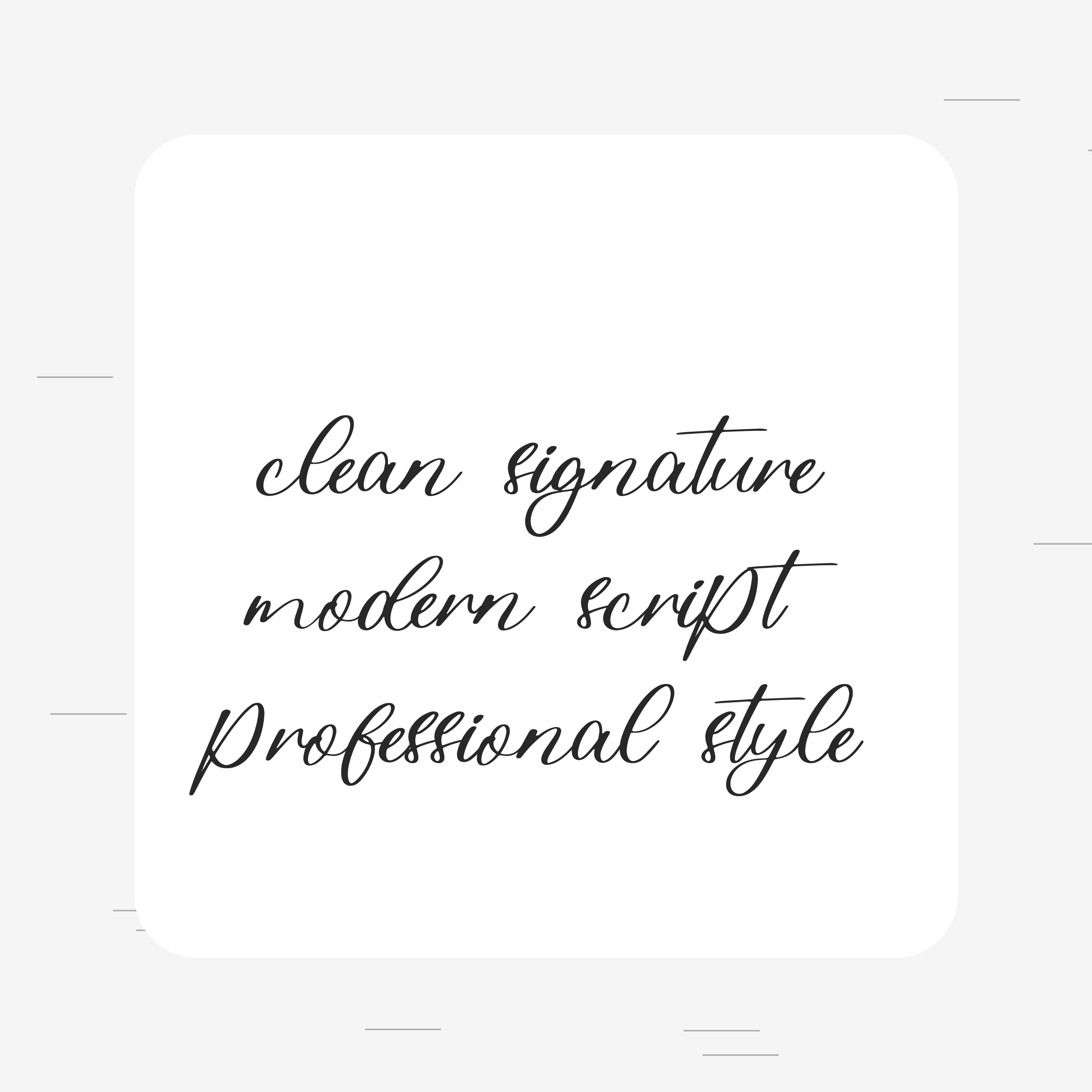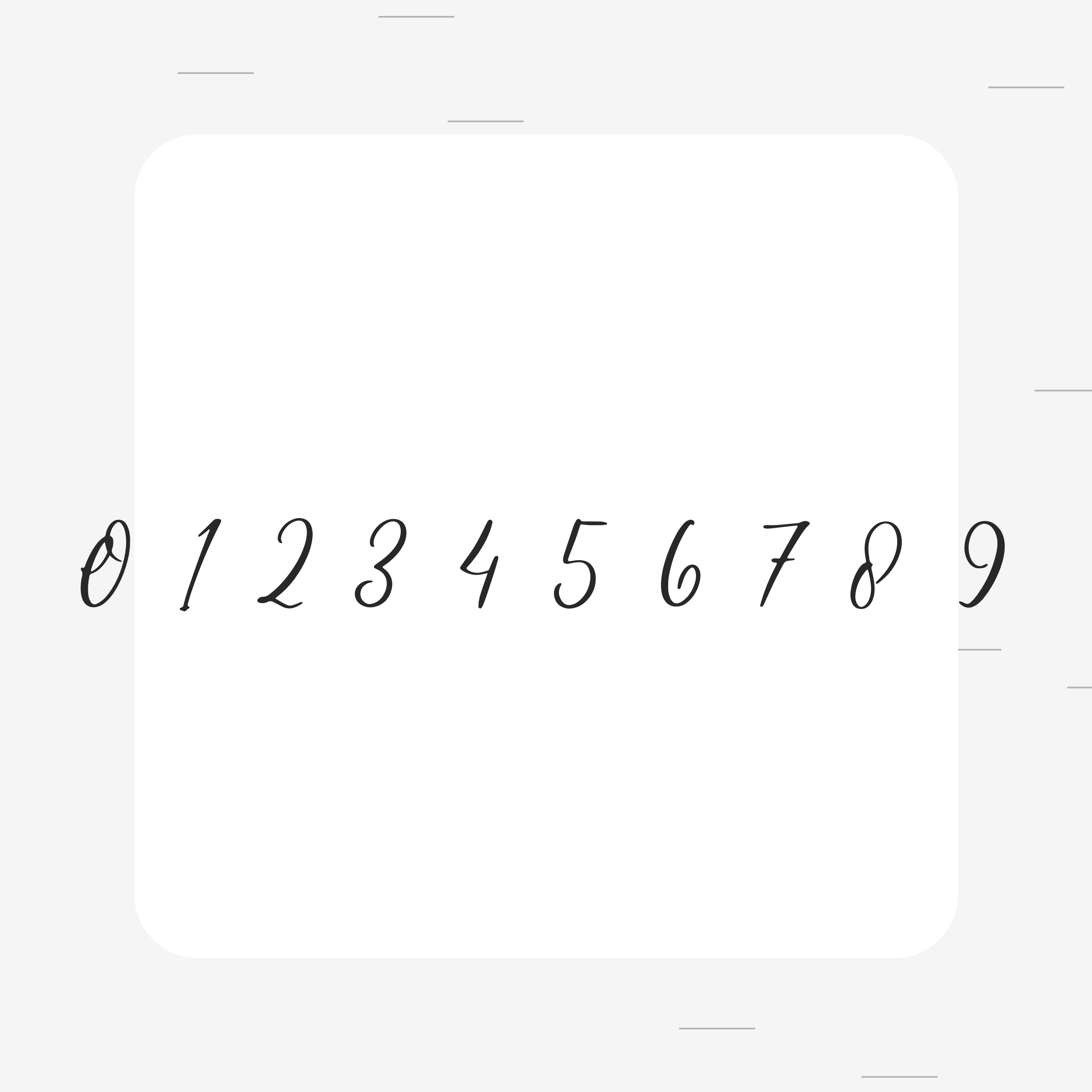
James Smith Signature Script Font | Elegant Cricut Font | Professional Handwritten Font
🖋️ James Smith is a modern, signature-style handwritten script font with a clean and professional look. Designed to feel natural and elegant, this font is perfect for Cricut projects, logos, branding, and minimal designs.
✨ Clean signature lettering
✨ Extra-large and easy to read
✨ Perfect for modern & professional projects